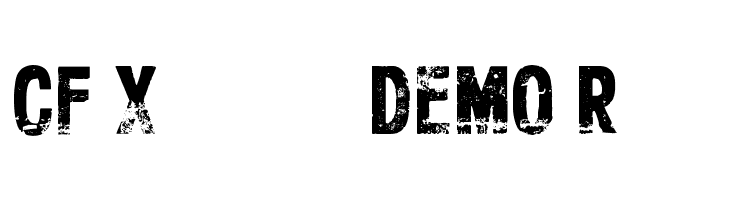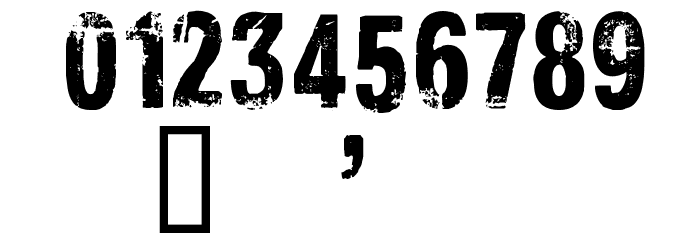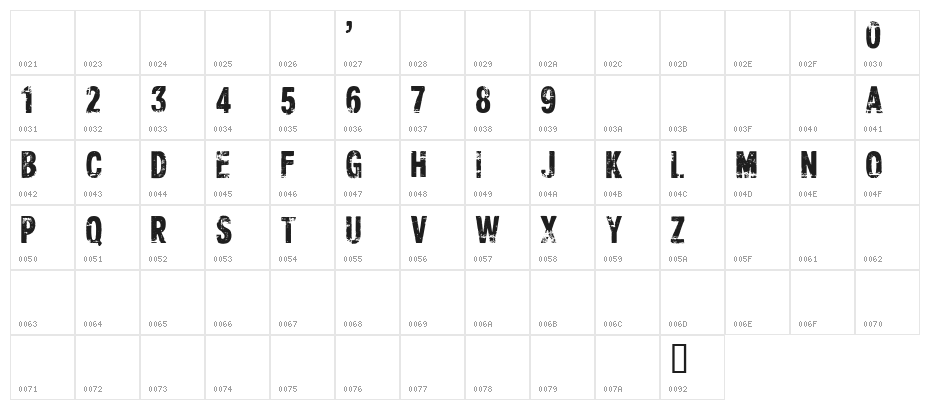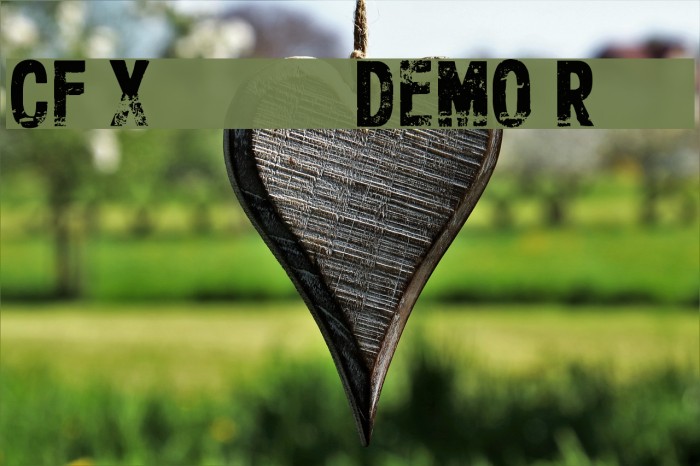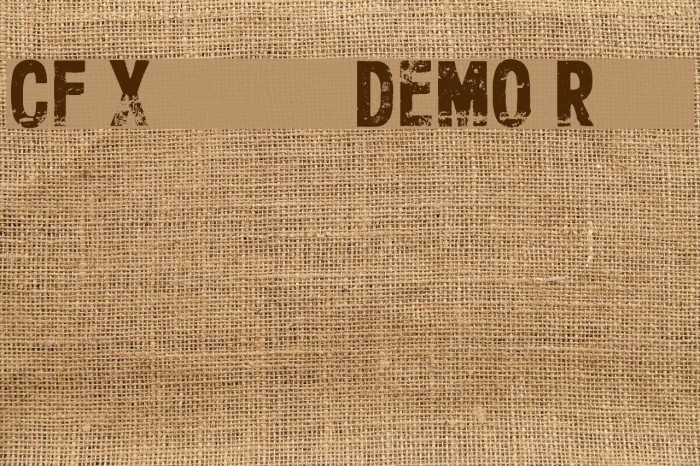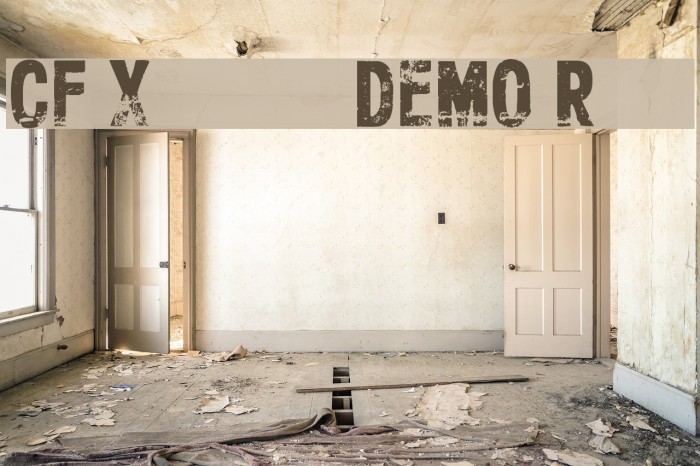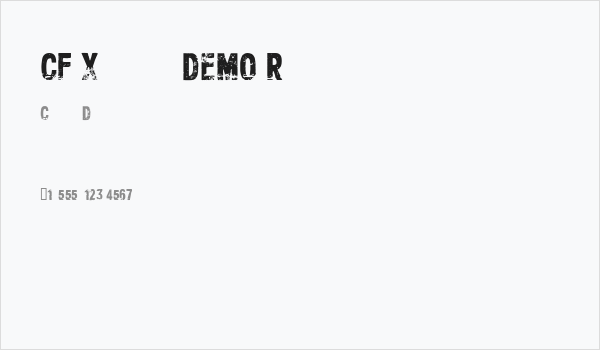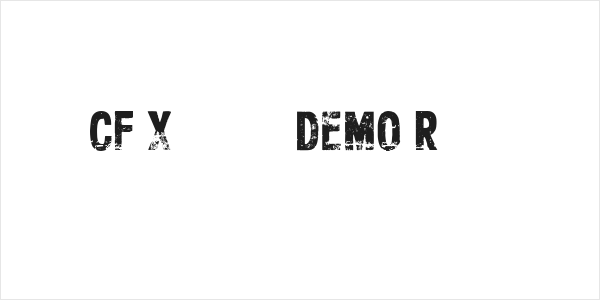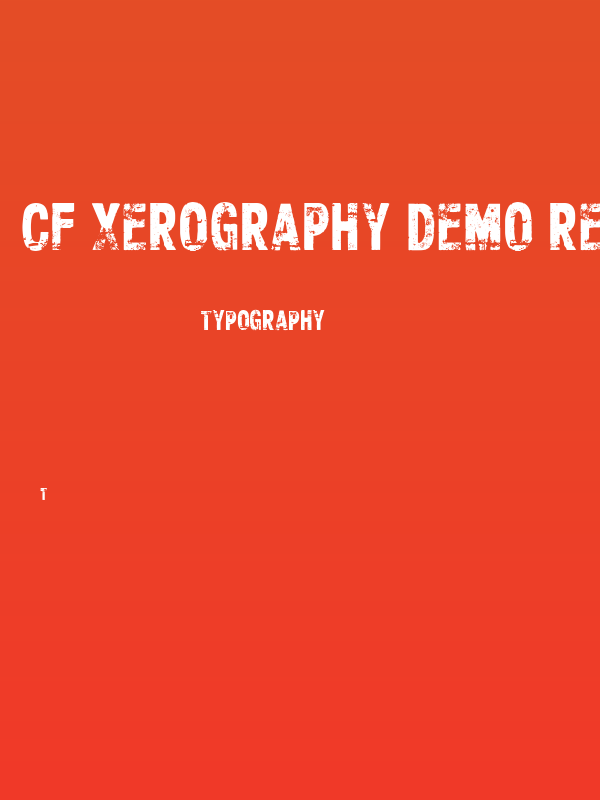
CF Xerography DEMO Regular Font
CF Xerography DEMO Regular Description
This font features a distressed, grunge style with a bold and impactful appearance. The characters are heavily textured, giving them a worn, vintage look reminiscent of old typewriter prints or xeroxed documents. The uppercase letters are prominent and robust, while the numbers maintain the same gritty aesthetic. The font's unique texture adds character and depth, making it ideal for projects that require a rugged, industrial feel. Its boldness ensures readability even with the distressed detailing, making it suitable for attention-grabbing headlines or artistic designs.
| Overall Style | Vintage, Grunge |
| Proposed Projects | Ideal for posters, album covers, urban-themed designs, and vintage-style branding. |